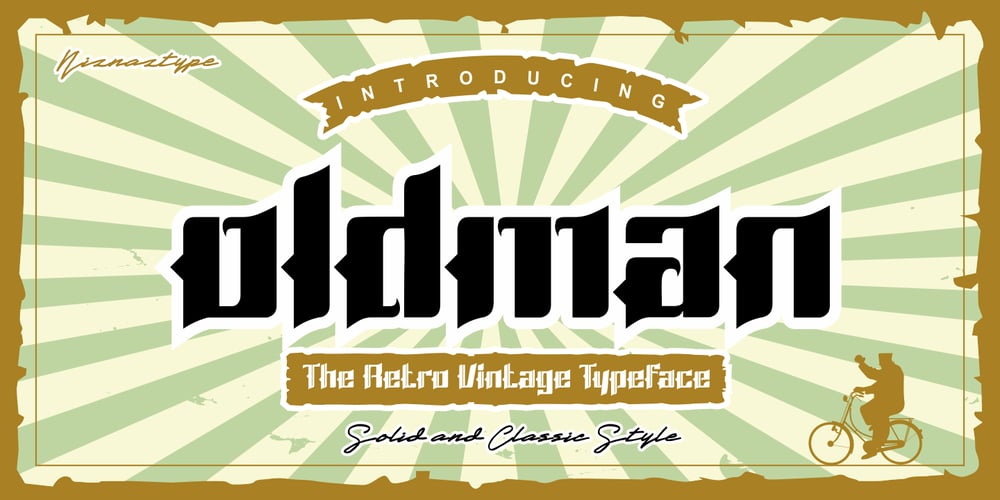
Oldman Font Family was designed by Muhammad Nazarudin and published by Niznaztype. Oldman contains 4 styles and family package options. Oldman is a new typeface with vintage styles. Oldman give a strongsoul but simple.Design themes like gothic, vintage, oldiest, retro, creepy, music andothers are very good used this Oldman font. Tshirt, headline, poster,logo, product titles will be a best things if you use this font. Oldmanhave a different impression in your design.Eventhough this font look like vintage typeface. But Oldman canused in blackletter designs.Oldman have consist of :- Uppercase- Lowercase- Numeral, symbol and punctuation- Multilingual LanguageOldman save in four styles. Regular, italic, solid and solid italic.Oldman created in two styles. First, Oldman normal characters is aglyph with classic style. Two, Oldman solid characters is a glypswithout classic style. See my preview samples.Please, enjoy it with my new font product. It is Oldman typeface,vintage glyph.Thank a lot